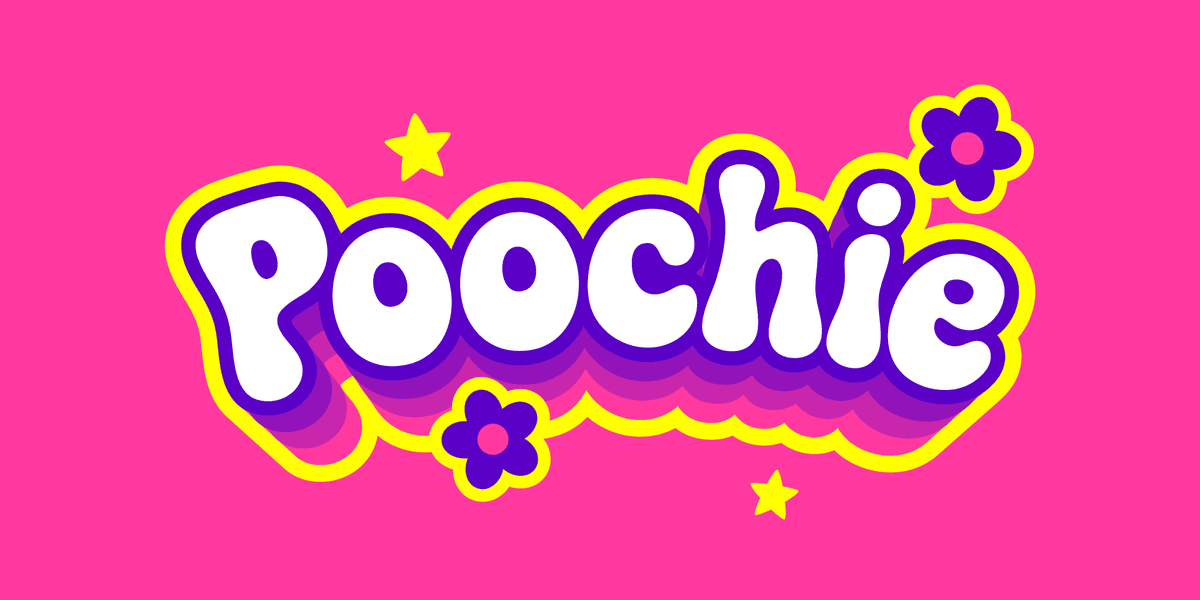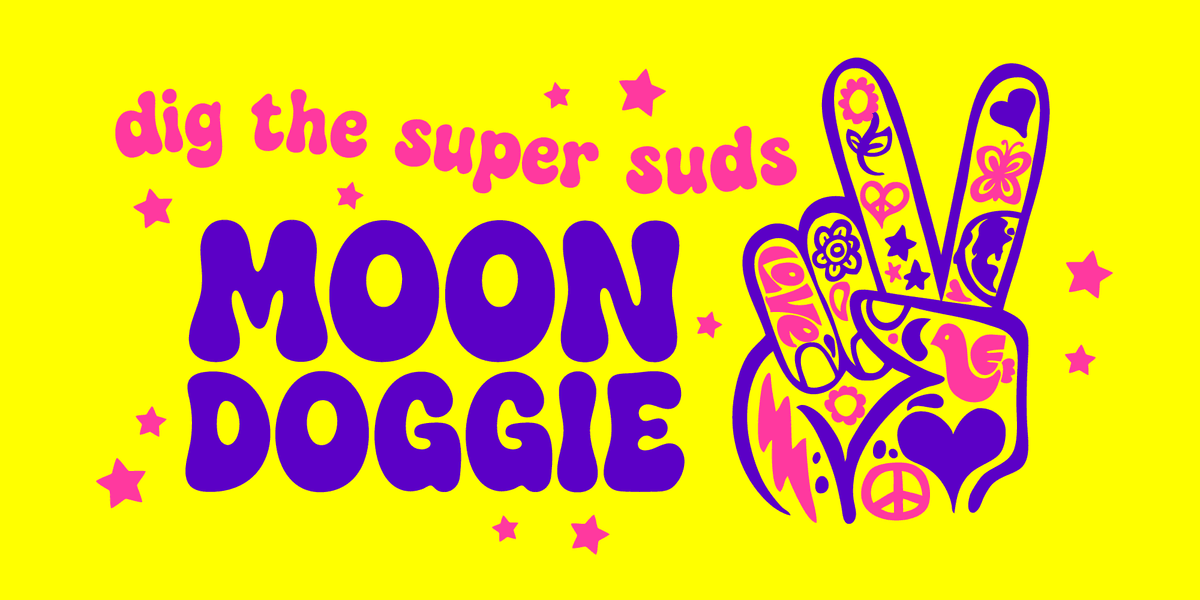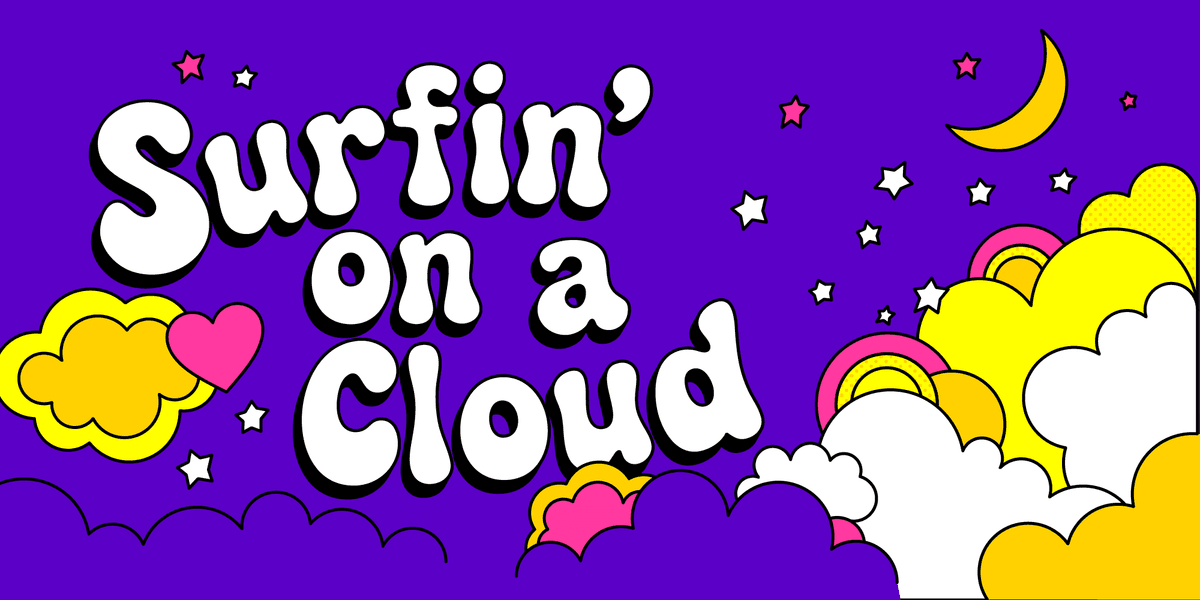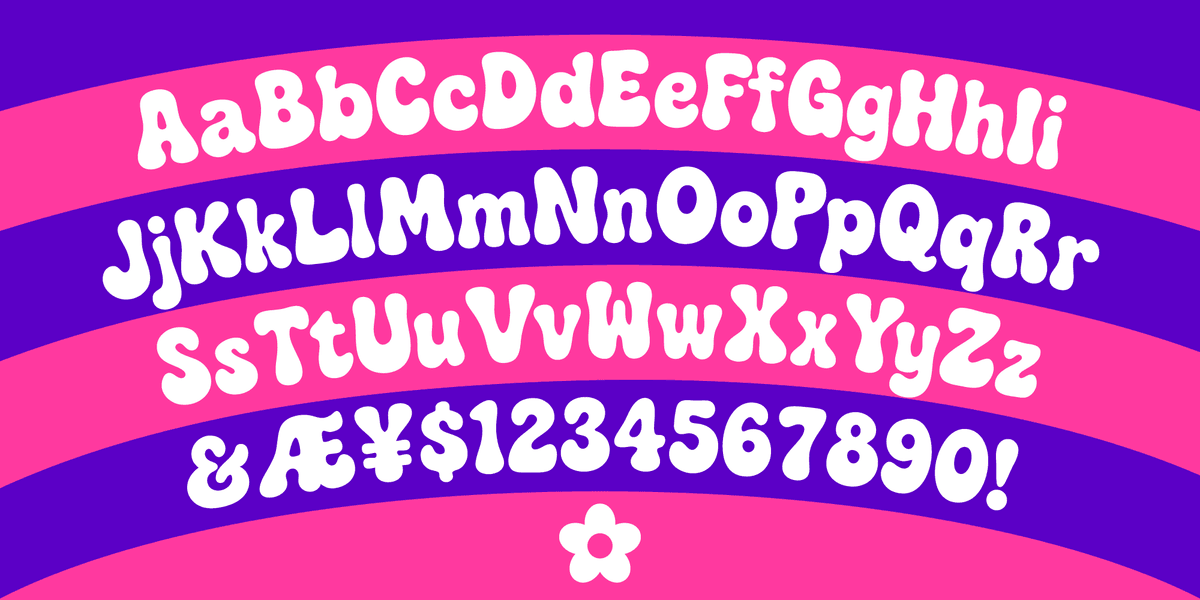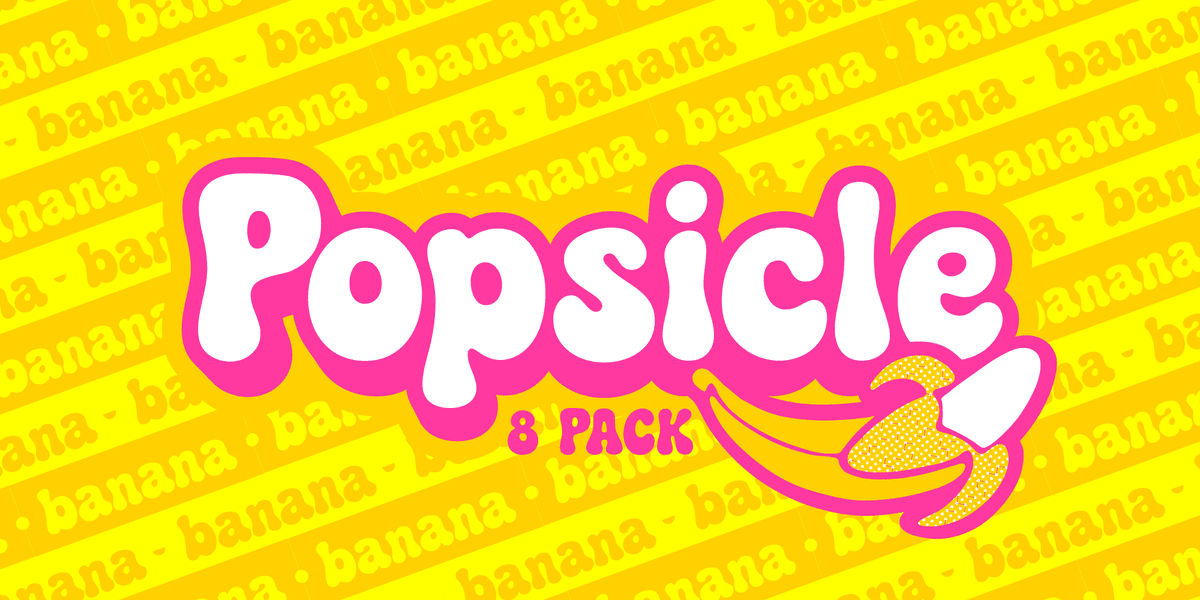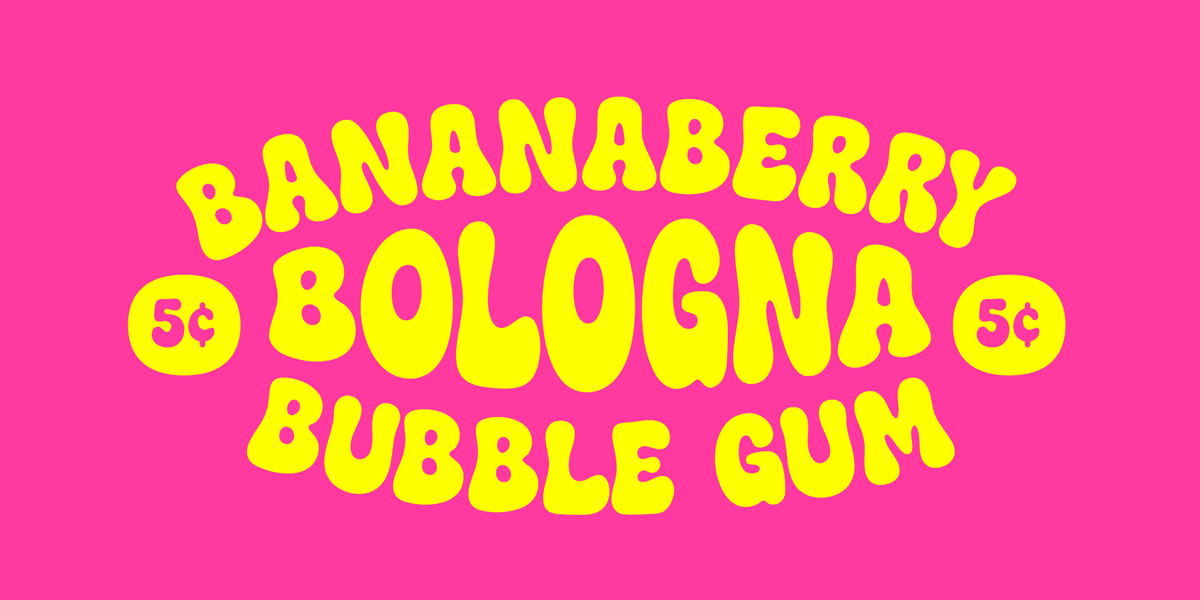
When I was creating this font, I couldn't decide whether to make a super cutesy 80s toy packaging font or a 70s psychedelic font. I guess we will never really know where I landed on this conundrum. Here's Poochie!